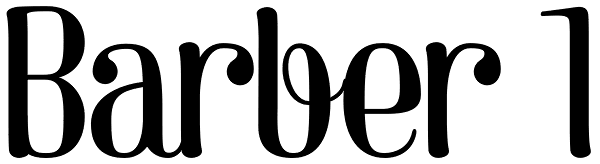
Barber
Barber is a versatile script font family with four weights. While Barber 1 is elegant and neat Barber 4 is cheerful, strong and full of warmth. Barber works great by just typing words but for some extra kick try turning on Contextual Alternates...